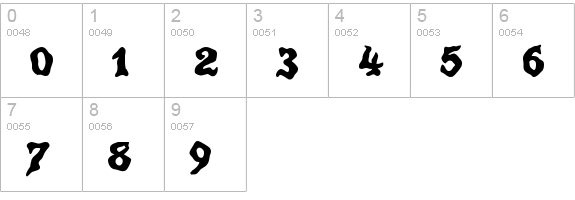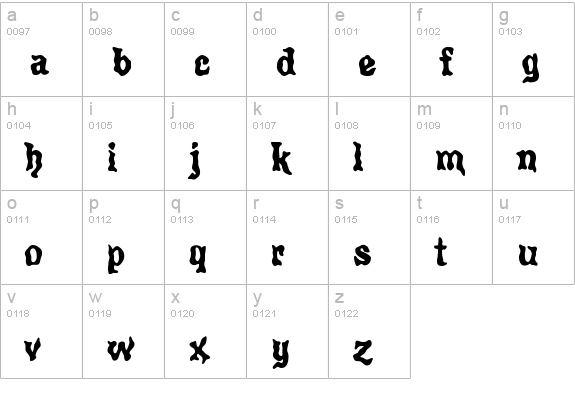
Poultrygeist Font Details
The Poultrygeist font is a whimsical and playful typeface that brings a touch of fun to any project. With its quirky and unique design, this font is perfect for adding a lighthearted and creative flair to your designs. Whether you're working on a poster, invitation, or branding project, Poultrygeist is sure to make your text stand out. Best of all, the Poultrygeist font is completely free to download at FontsMarket.com, making it easily accessible for all your design needs. Don't miss out on this charming and delightful font that will bring a touch of personality to your next project. Download Poultrygeist today and let your creativity take flight!